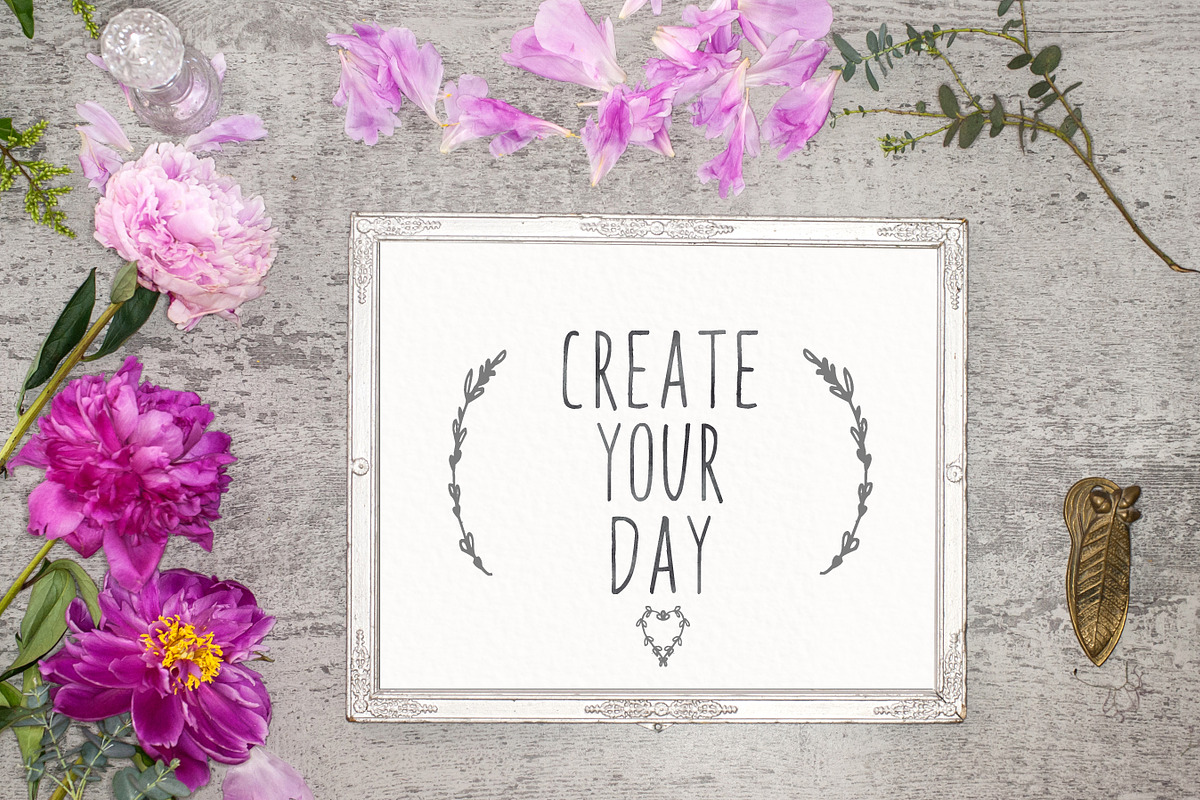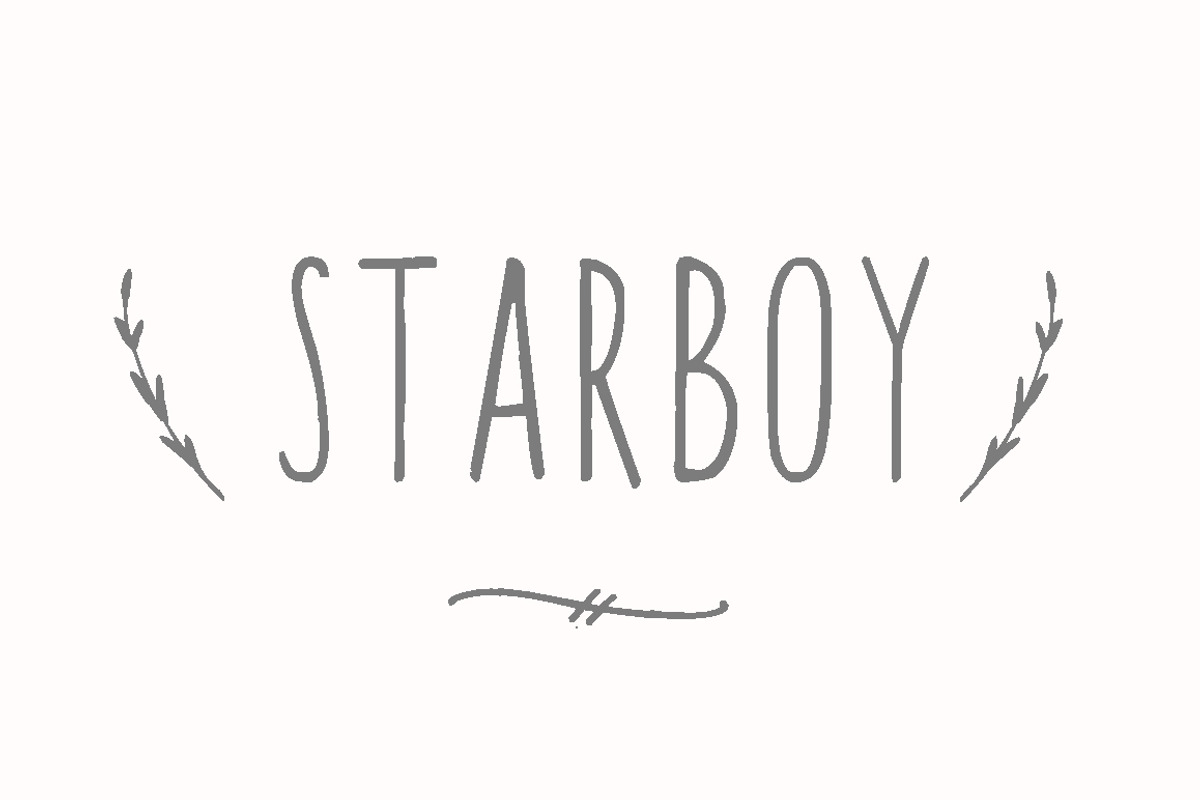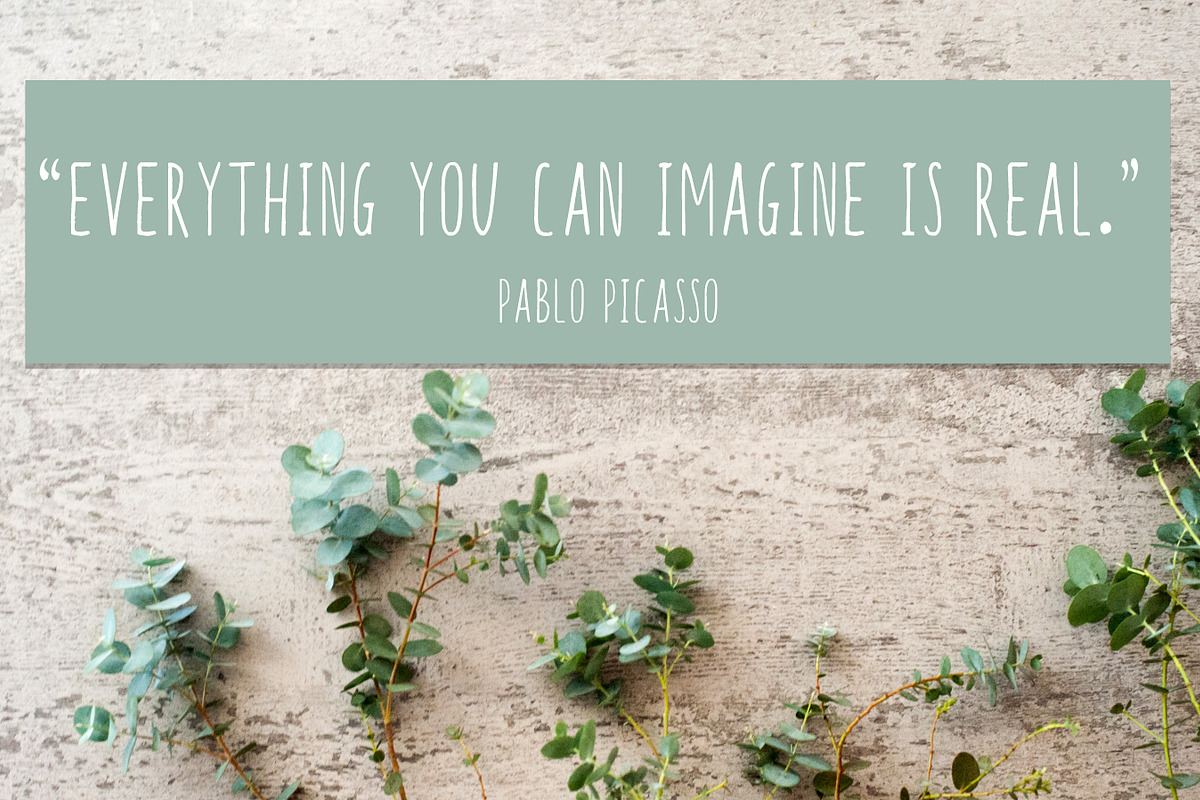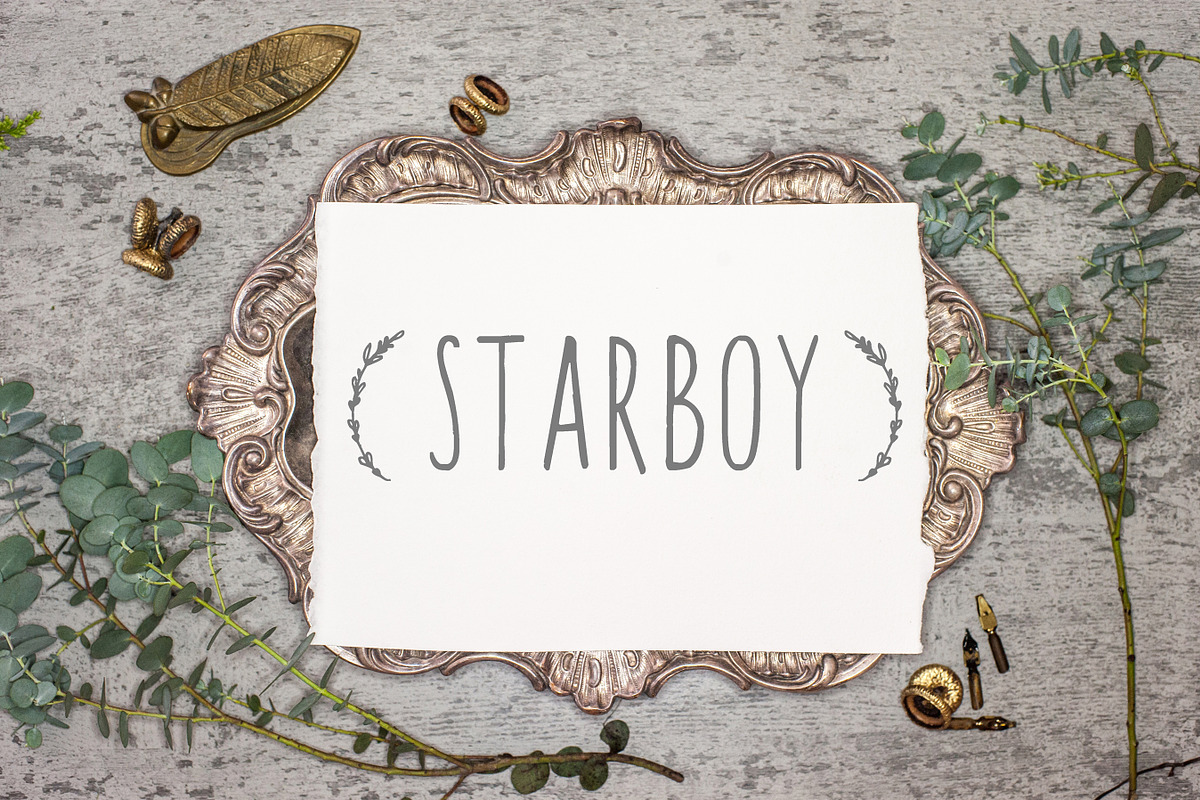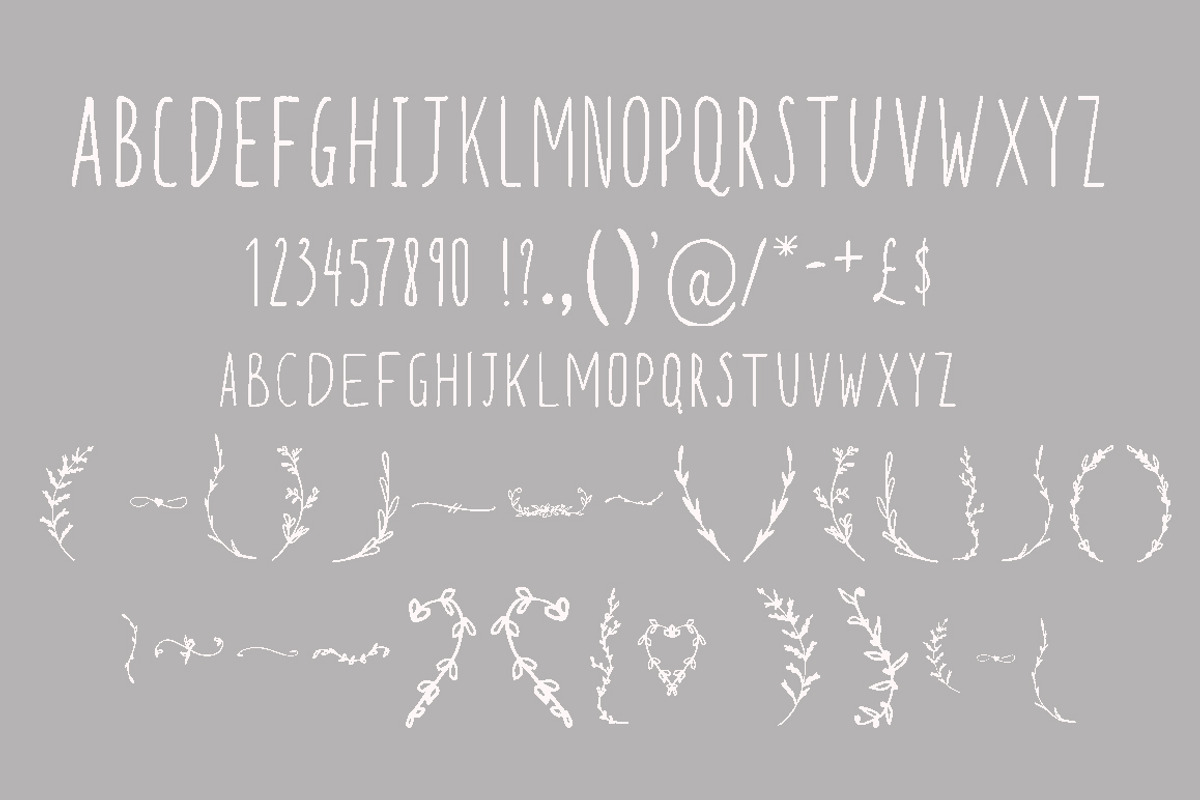
Starboy Handwritten typeface The handwritten font STARBOY . This is generic, readable handwritten font, will works well in every kind of design.
It looks fantastic for branding, logos, and websites as well!
- You will also receive calligraphic ornaments with tiny branches which will be ideal for branding, wedding invitations, logos...